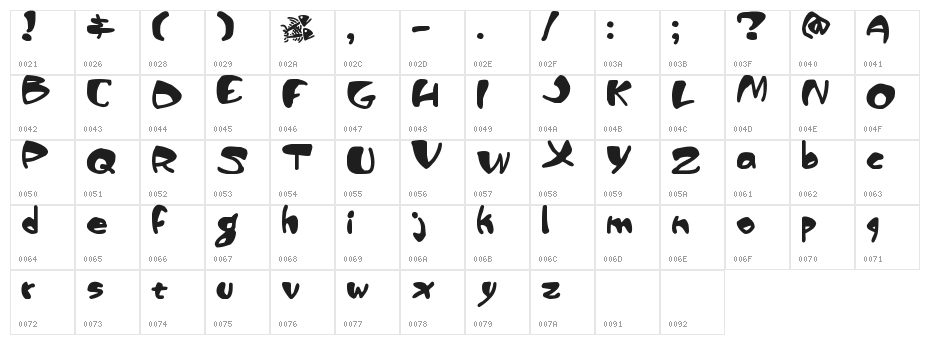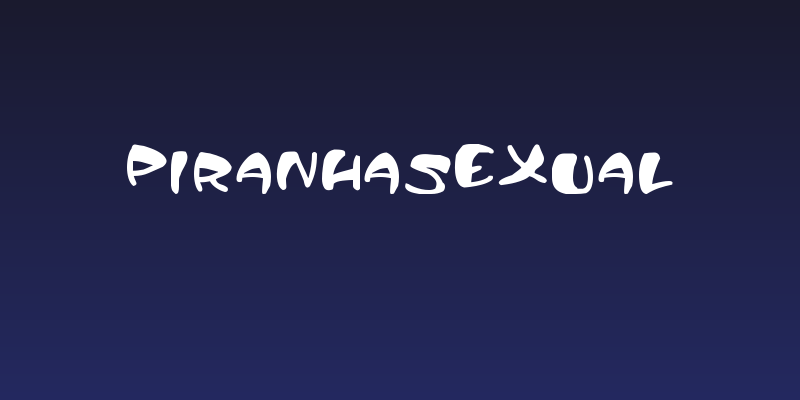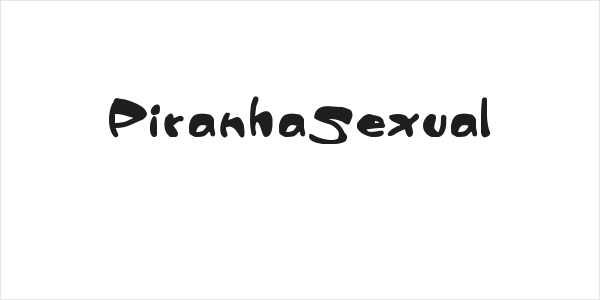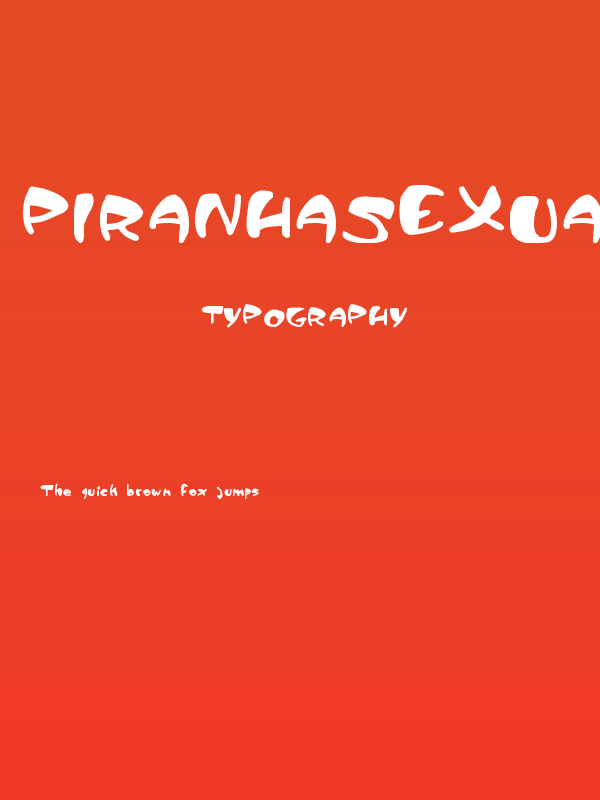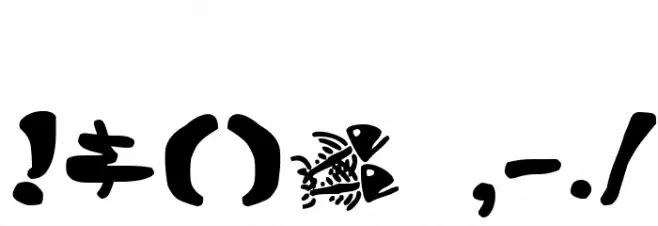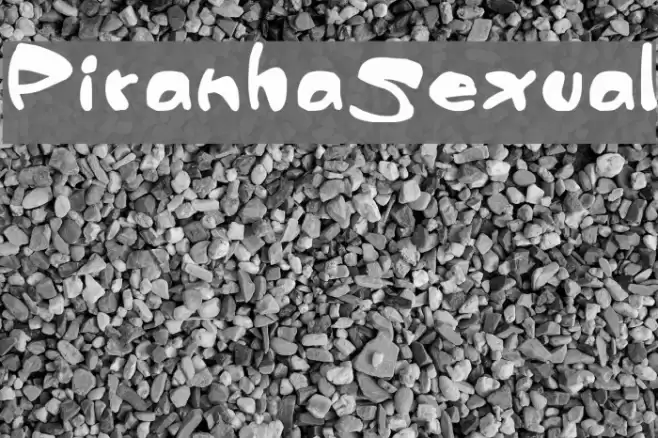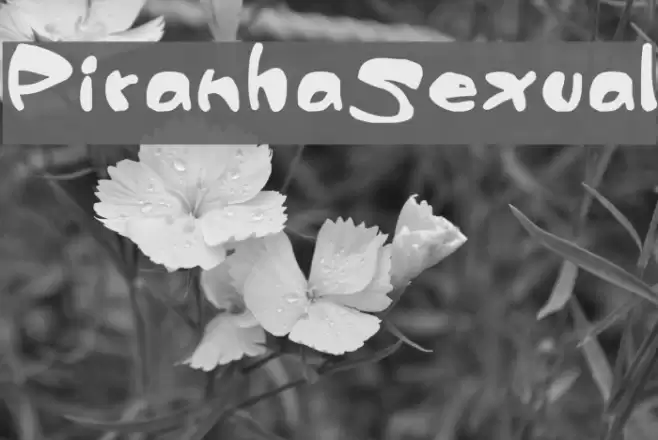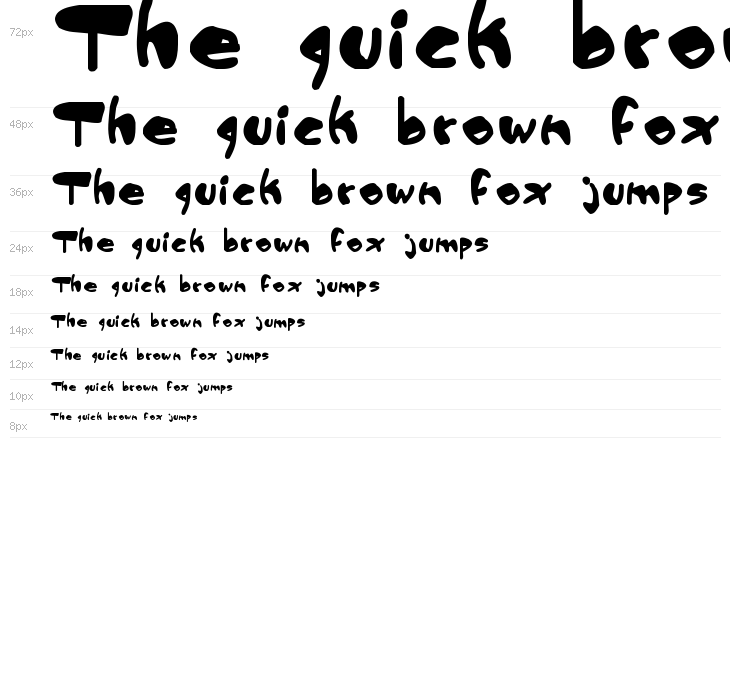
PiranhaSexual Font
PiranhaSexual Description
This font features a playful and bold style with a hand-drawn appearance. The characters are slightly irregular, giving it a whimsical and organic feel. The uppercase letters are robust and dynamic, while the lowercase letters maintain a consistent flow with rounded edges. The numbers and special characters complement the overall aesthetic, adding to its quirky charm. The font's unique design is suitable for creative and informal projects, where a touch of personality is desired.
| Proposed Projects | Ideal for children's books, playful branding, creative posters, and informal invitations. |